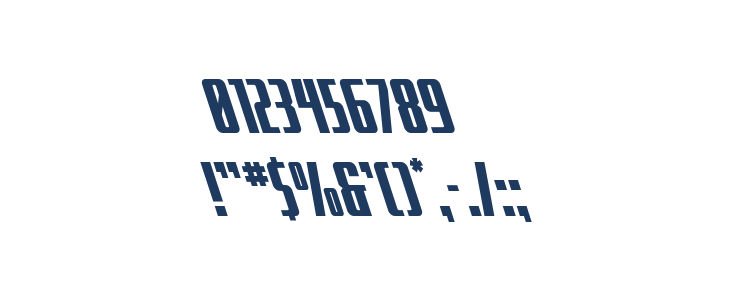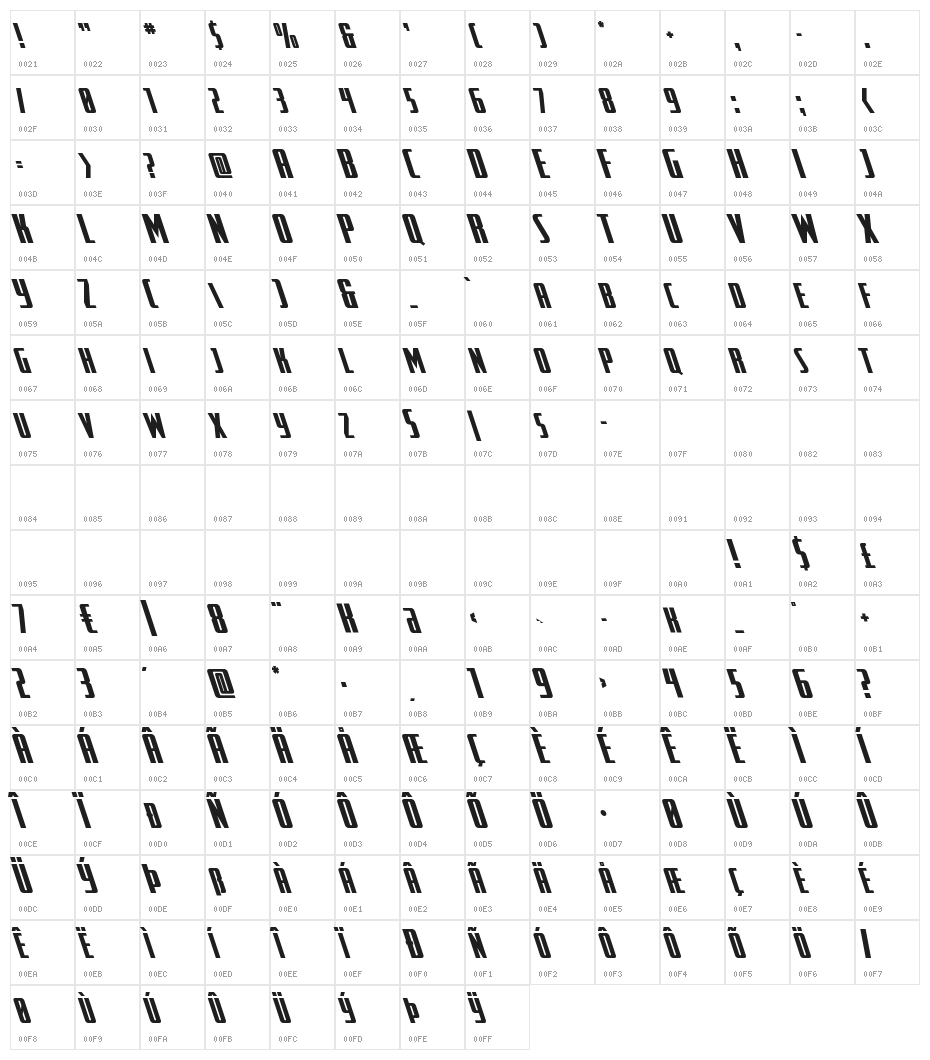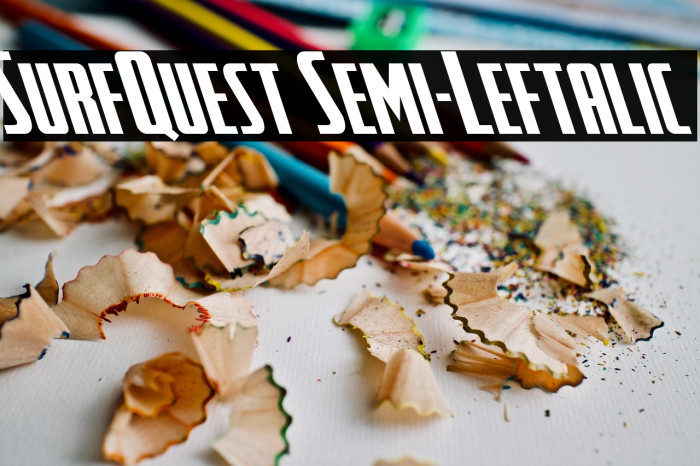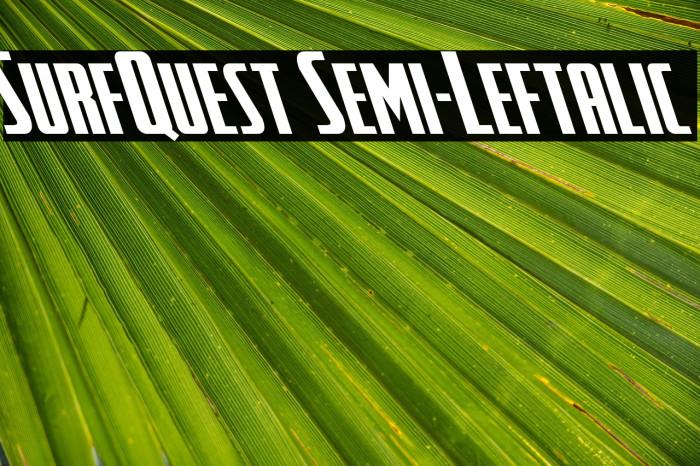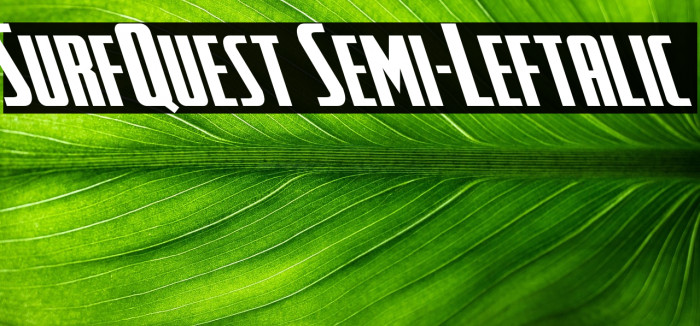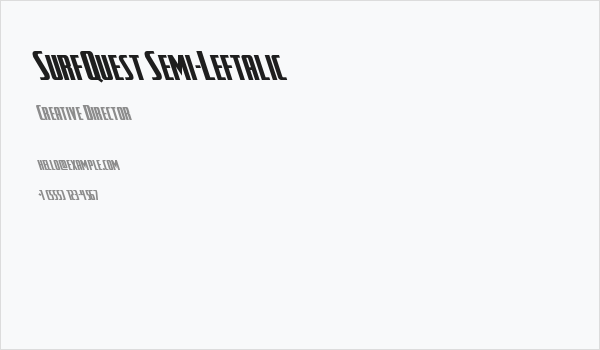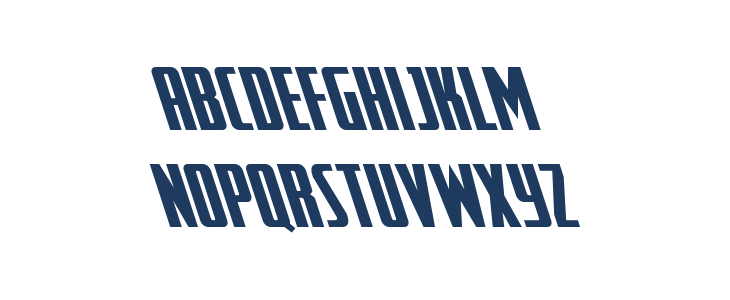
SurfQuest Semi-Leftalic Font
SurfQuest Semi-Leftalic Description
This font features a bold, dynamic style with a distinct leftward slant, giving it a sense of motion and energy. The characters are tightly spaced, enhancing its compact and impactful appearance. The uppercase and lowercase letters maintain a consistent weight, contributing to a cohesive look. The numbers and special characters follow the same stylistic cues, ensuring uniformity across all glyphs. Its bold strokes and angular design make it suitable for attention-grabbing headlines and logos. The font's modern and edgy aesthetic is ideal for projects that require a strong visual presence.